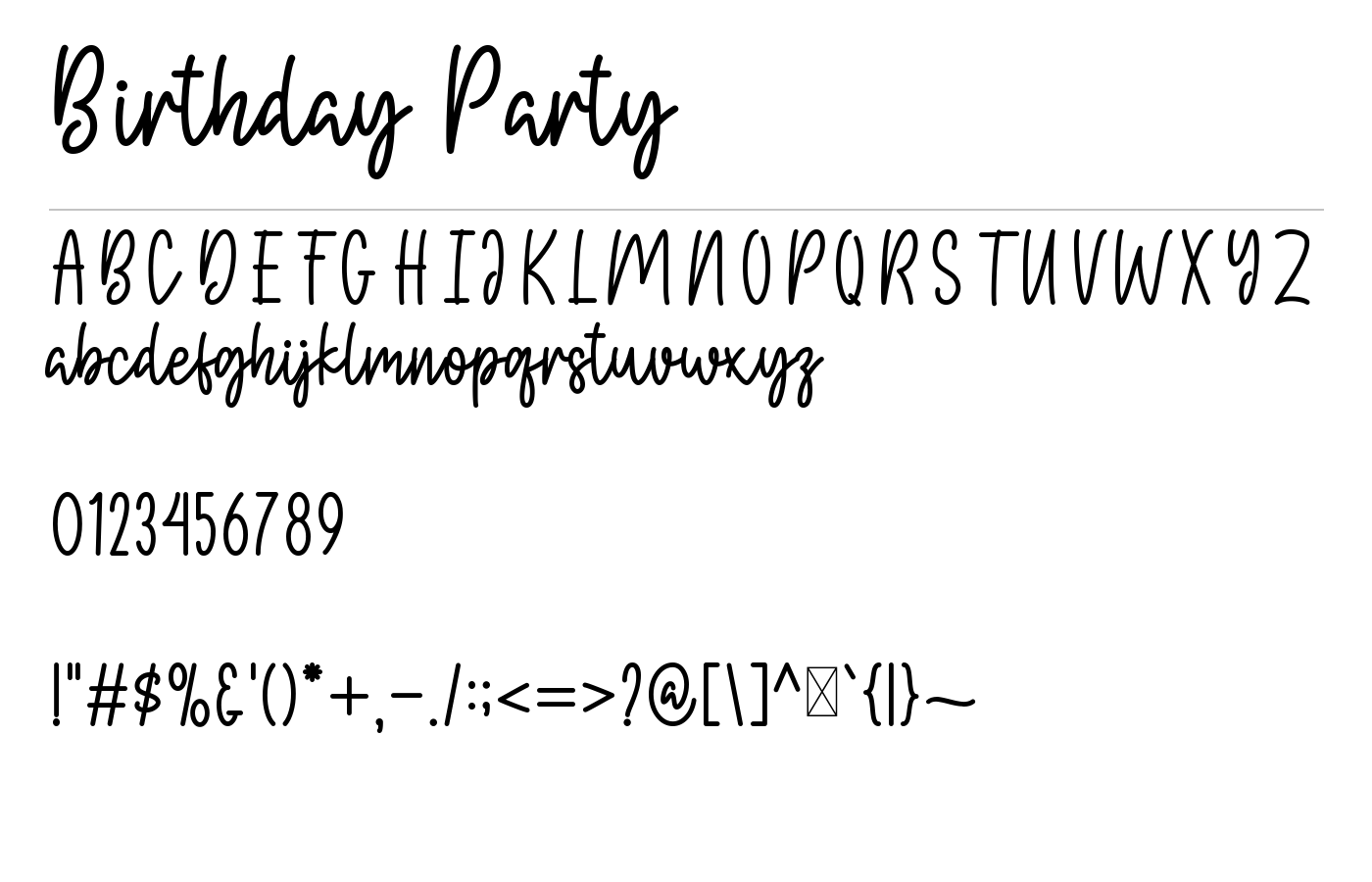
Birthday Party is a playful and casual script font with a hand-drawn feel, featuring a lightweight, narrow design and a lively, smooth flow. Its friendly and informal style makes it perfect for invitations, greeting cards, and any joyful branding that seeks a personal, approachable touch. This font works best in creative and fun contexts where warmth and personality are key.
Birthday Party Font
About Birthday Party Font